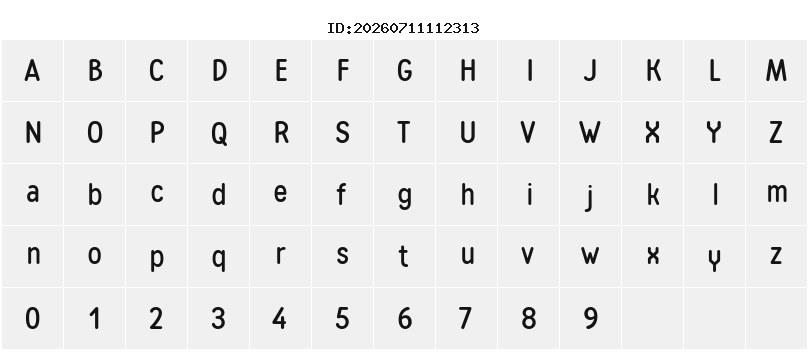
• Font Name: Matias
• Designer: Vitaliy Tsygankov & Jovanny Lemonad
About Matias.ttf
Matias.ttf is a modern, elegant sans-serif font designed for ultimate readability and visual harmony. Perfect for branding, headlines, web design, and print materials.